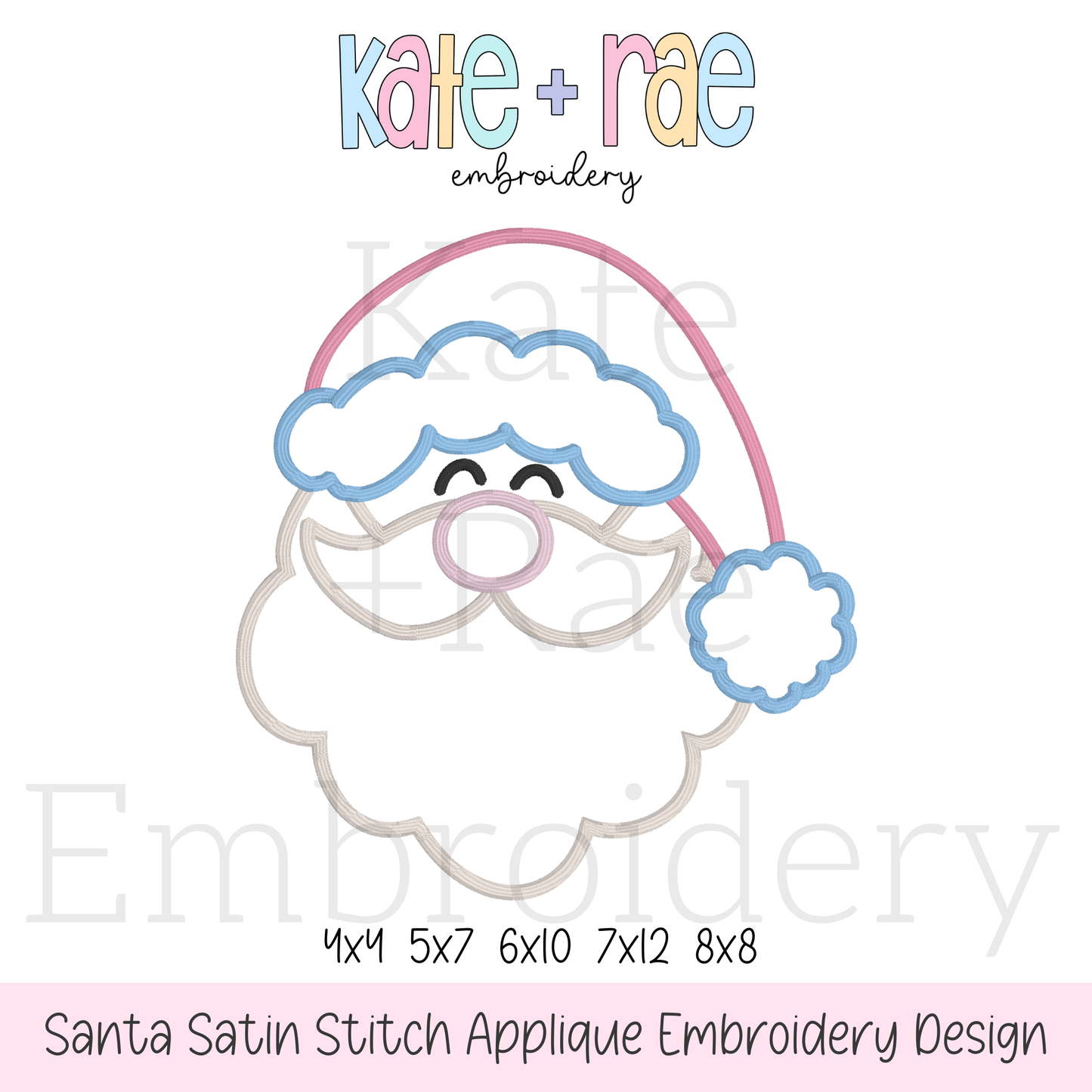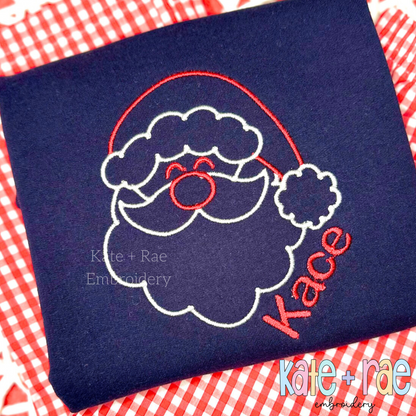
Santa Claus Satin Stitch Applique Embroidery Font
Santa Claus Satin Stitch Applique Embroidery Font.
Use it as an applique or an outline stitch to create unique designs.